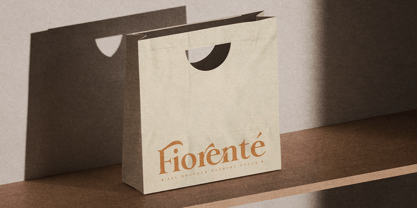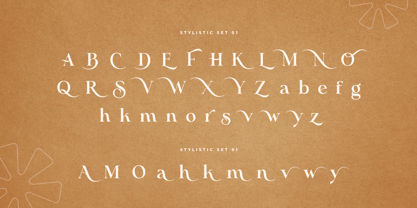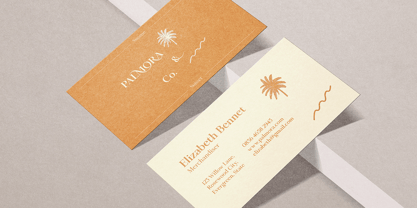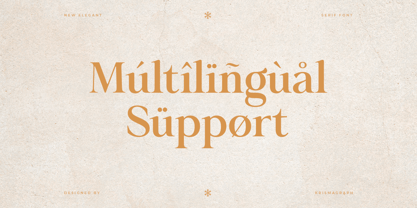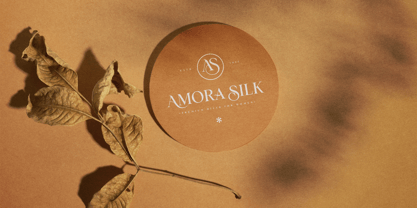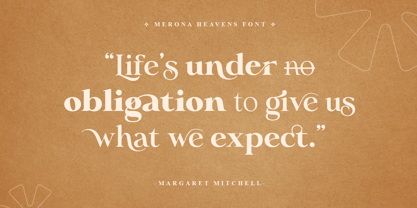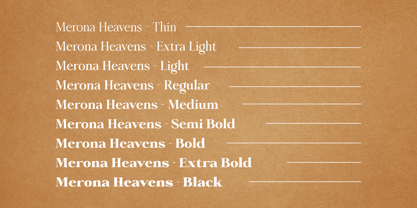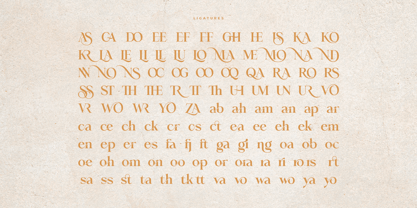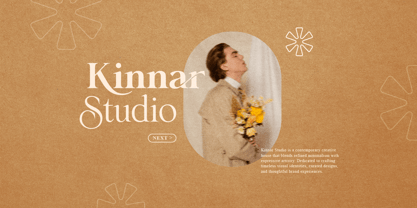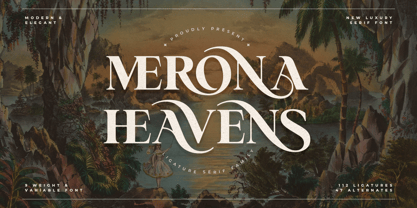
Merona Heavens
The Merona Heavens Font Family was designed by Ratna Krismawati and published by Krismagraph. Merona Heavens contains 10 styles and family package options. More about this family
Merona Heavens Family is a Variable Modern Ligature Serif Font Family. It's soft curves mixed with high contrast glyphs, give it a feminine and masculine quality. It comes with 6 weight, 112 unique ligatures and 47 alternates. Great in layout design for quotes or body copy, best used as a display for headings, logos, branding, magazines, product packaging and invitations. . Its versatile aesthetic opens the door to endless creative possibilities, making it an essential addition to any designer’s toolkit. To make the most of its exquisite ligatures and beautifully connected letterforms. FEATURES : - 9 Weight - 112Ligatures - 47 Stylistic Alternates - Uppercase and Lowercase letters - Numbering and Punctuations - Works on PC or Mac - Simple Installation - PUA Encoded Characters - Easily accessible without additional design software. - Support Adobe Illustrator, Adobe Photoshop, Adobe InDesign, also works on Microsoft Word - Multilingual Support Thank you.